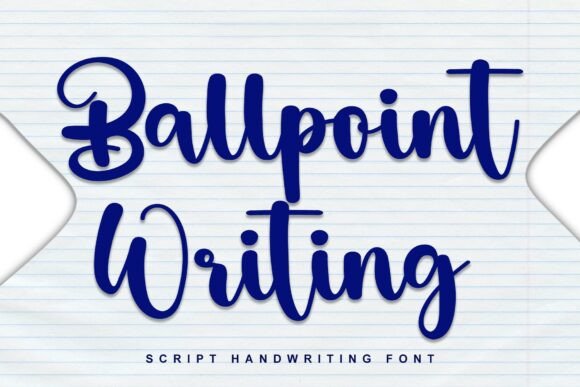
Introducing Ballpoint Writing Font: The Epitome of Elegance and Charisma
In the realm of typography, few fonts have managed to capture the essence of elegance, charisma, and confidence as effectively as Ballpoint Writing Font. This remarkable typeface is designed to make a statement, boasting bold, fluid strokes and a dynamic script style that exudes strength and sophistication. Whether you’re looking to create a striking logo, a stylish headline, or an eye-catching branding element, Ballpoint Writing Font is the perfect choice.
The Inspiration Behind Ballpoint Writing Font
The Ballpoint Writing Font is inspired by the classic ballpoint pen, a ubiquitous writing instrument known for its reliability and fluid ink flow. The font’s creator aimed to capture the essence of handwritten calligraphy, infusing it with a modern and assertive touch. The result is a font that is both elegant and dynamic, perfect for projects that require a sense of sophistication and confidence.
Key Features of Ballpoint Writing Font
- Bold and Fluid Strokes: The font features bold, fluid strokes that give it a sense of movement and energy.
- Dynamic Script Style: The script style of Ballpoint Writing Font is dynamic and expressive, making it perfect for headlines and titles.
- Elegant and Charismatic: The font exudes elegance and charisma, making it ideal for luxury brands and high-end projects.
- Modern and Assertive: The font has a modern and assertive touch, making it perfect for projects that require a sense of confidence and sophistication.
Uses of Ballpoint Writing Font
Ballpoint Writing Font is a versatile typeface that can be used in a variety of projects, including:
- Logo Design: The font’s bold and dynamic style makes it perfect for creating striking logos that capture the essence of a brand.
- Headlines and Titles: The font’s script style and fluid strokes make it ideal for headlines and titles that require a sense of elegance and sophistication.
- Branding Elements: The font can be used to create eye-catching branding elements, such as business cards, letterheads, and packaging.
- Advertising and Marketing: The font’s charismatic and confident style makes it perfect for advertising and marketing materials, such as billboards, posters, and brochures.
Benefits of Using Ballpoint Writing Font
Using Ballpoint Writing Font offers several benefits, including:
- Unique and Memorable: The font’s bold and dynamic style makes it unique and memorable, helping to create a lasting impression on the audience.
- Elegant and Sophisticated: The font’s elegant and sophisticated style makes it perfect for luxury brands and high-end projects.
- Versatile: The font is versatile and can be used in a variety of projects, from logos and headlines to branding elements and advertising materials.
- Easy to Read: Despite its bold and dynamic style, the font is easy to read, making it perfect for body text and other applications where readability is important.
Tips for Using Ballpoint Writing Font Effectively
To get the most out of Ballpoint Writing Font, follow these tips:
- Use it Sparingly: While the font is bold and dynamic, it can be overwhelming if used excessively. Use it sparingly to create a lasting impression.
- Pair it with Other Fonts: Pair Ballpoint Writing Font with other fonts to create a unique and memorable typography scheme.
- Experiment with Colors: Experiment with different colors to find the perfect combination that complements the font’s elegant and charismatic style.
- Consider the Context: Consider the context in which the font will be used. For example, if it’s for a luxury brand, you may want to use a more elegant and sophisticated color scheme.
Ballpoint Writing Font is a remarkable typeface that exudes elegance, charisma, and confidence. Its bold, fluid strokes and dynamic script style make it perfect for a variety of projects, from logos and headlines to branding elements and advertising materials. By following the tips outlined above, you can use Ballpoint Writing Font effectively to create a lasting impression on your audience.